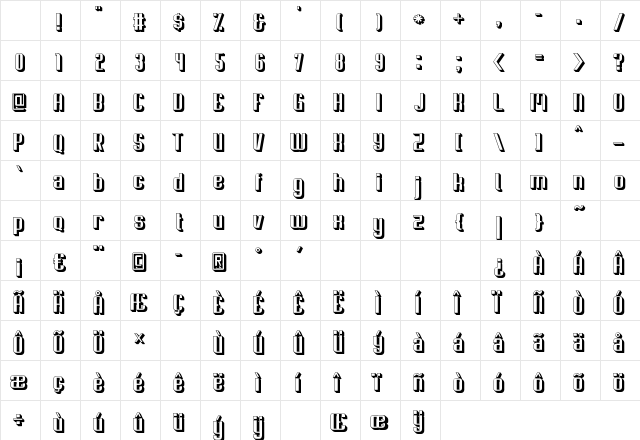
Complete Soupertrouper 3D glyph index. Displaying only characters natively supported by Soupertrouper 3D font.
Soupertrouper is a composed and adaptable typeface that performs quietly and consistently across a wide range of design contexts.